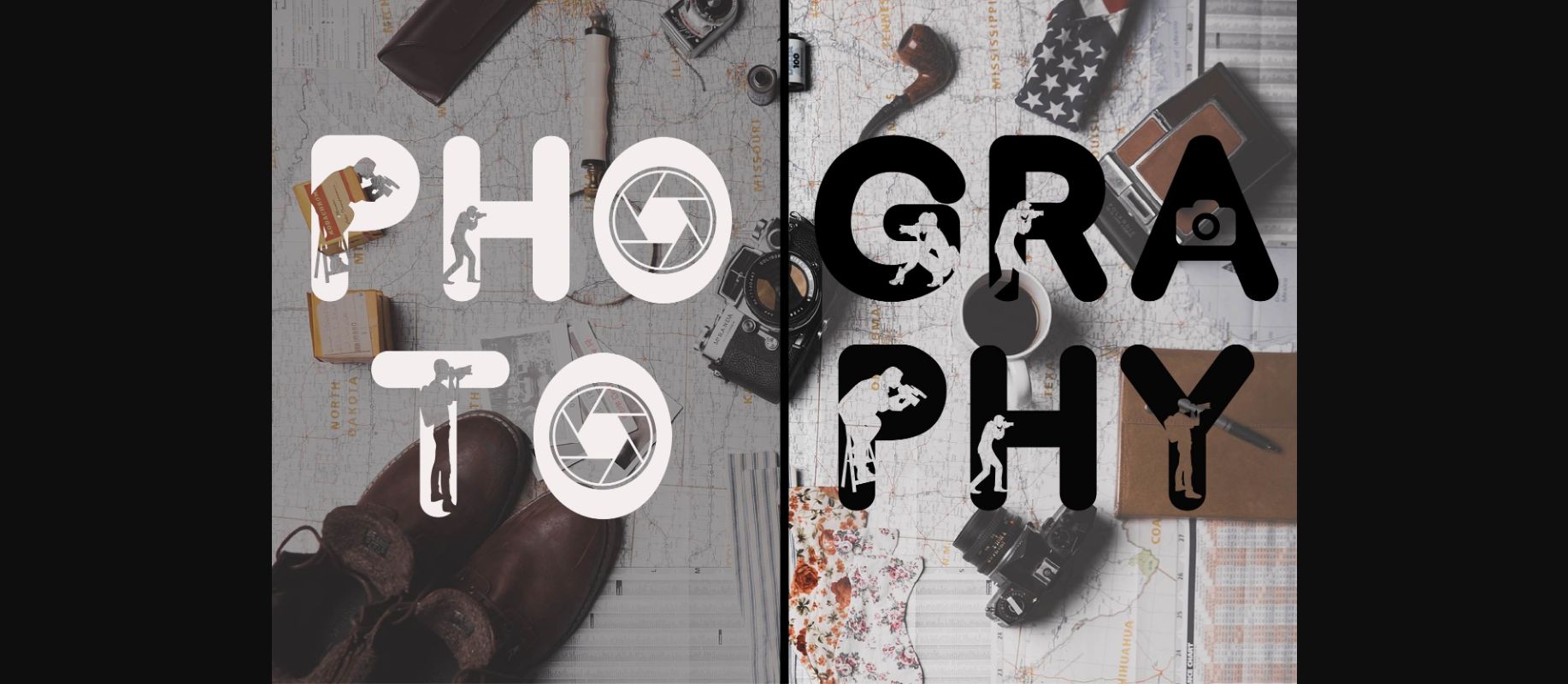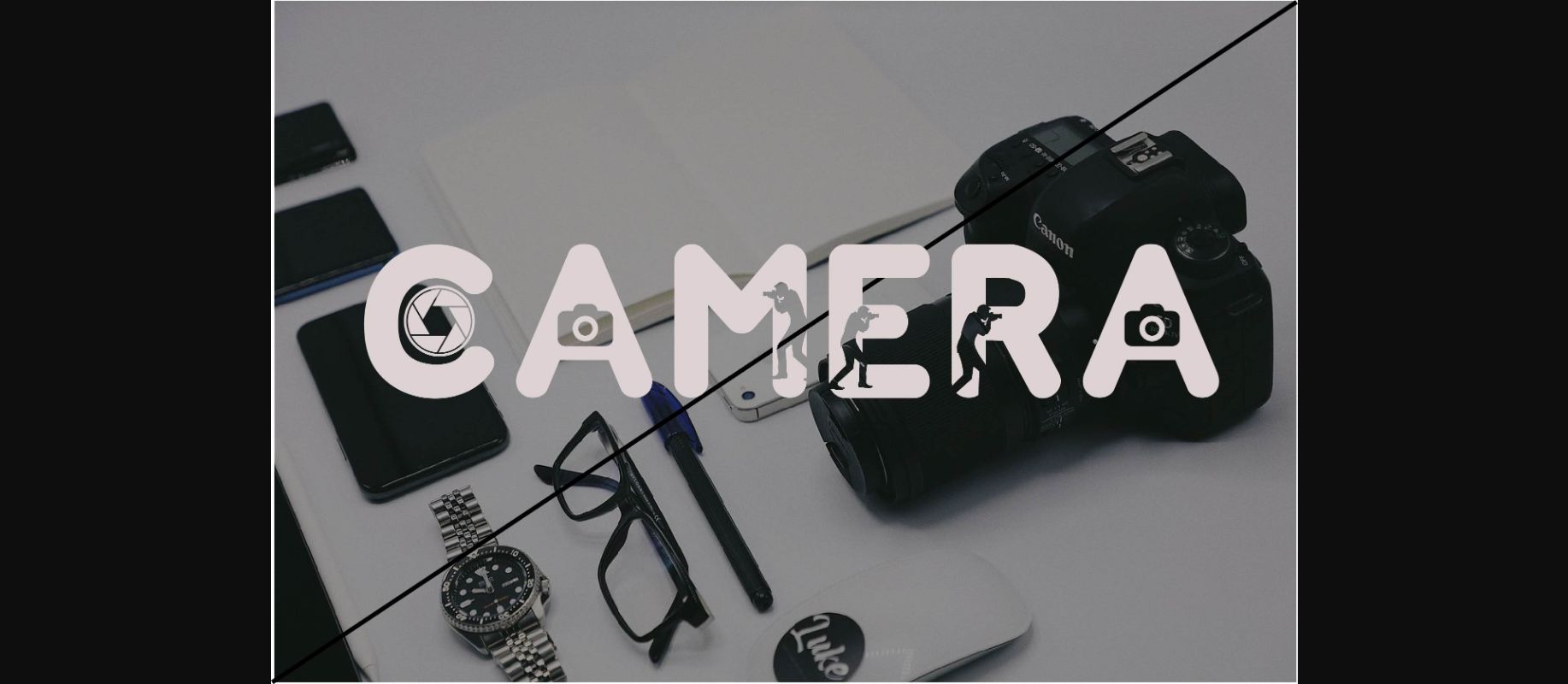
About Photography Font
Photography is a cool and original looking decorative font. It is suitable for logotype, headline font, in corporate identity, brand identity, apparel industry, poster, music, movie, game, magazine, book, comic, cartoon, YouTube, Instagram, website, or any of your creative design projects.